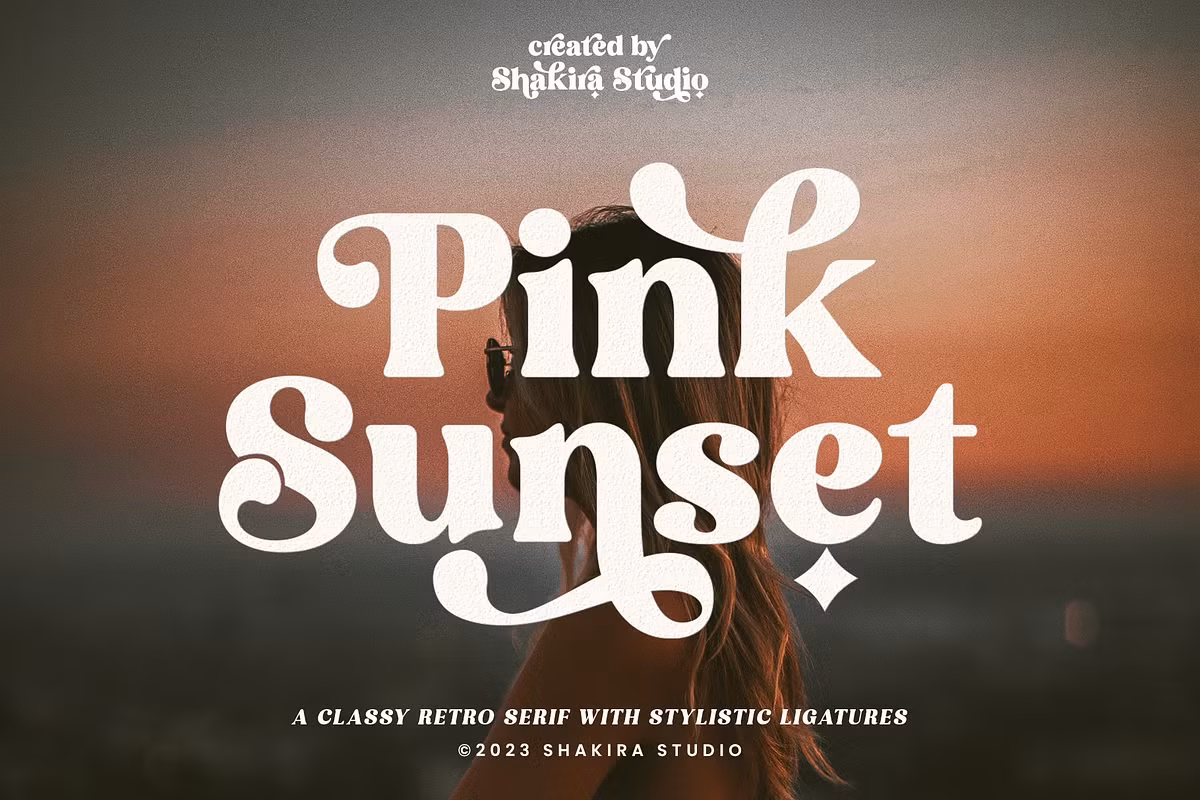
Pink Sunset - Retro Serif Free Download
Pink Sunset Font - Retro Serif Free Download
Pink Sunset Font - Retro Serif Free Download is a bold and nostalgic typeface that channels the vibrant energy of retro design. With its thick serifs, rounded edges, and vintage charm, this font is perfect for creating eye-catching headlines, logos, posters, and branding projects that need a bit of retro flair.
Inspired by the design trends of the '60s and '70s, Pink Sunset combines a playful and modern approach with timeless appeal. Its bold letterforms make it ideal for any project where you want to evoke a sense of fun, warmth, and nostalgia.